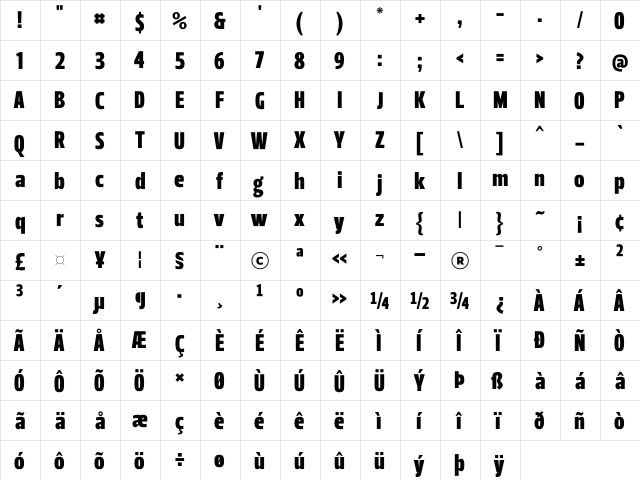
Leitura Headline Sans
| Style | Sans |
| Foundry | Dino dos Santos _DSType |
| Designer | Dino dos Santos |
Design Context for Leitura Headline Typeface
Leitura Headline offers clean, dependable letterforms without strong stylistic allegiance, making it a practical choice for designers who need flexibility.